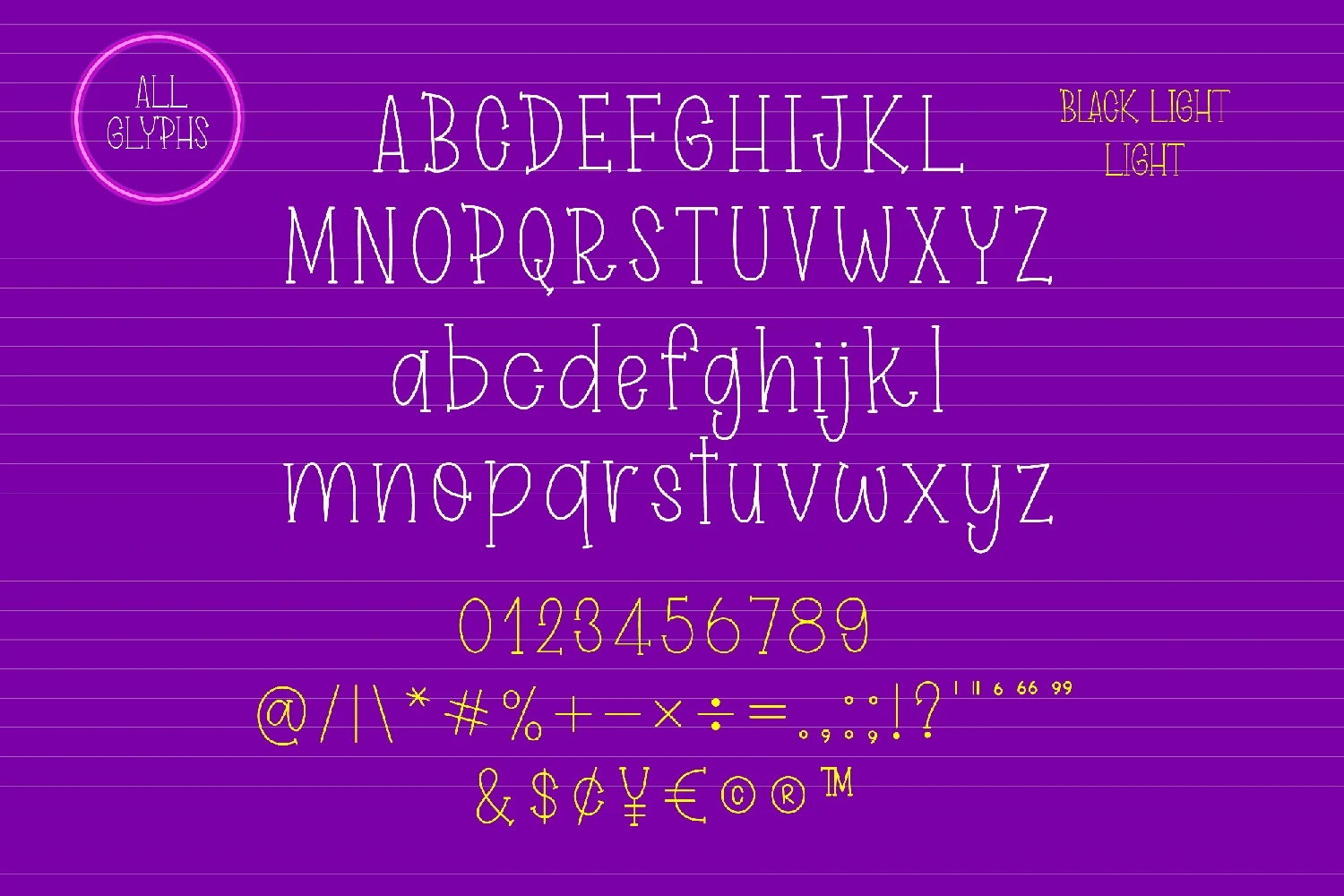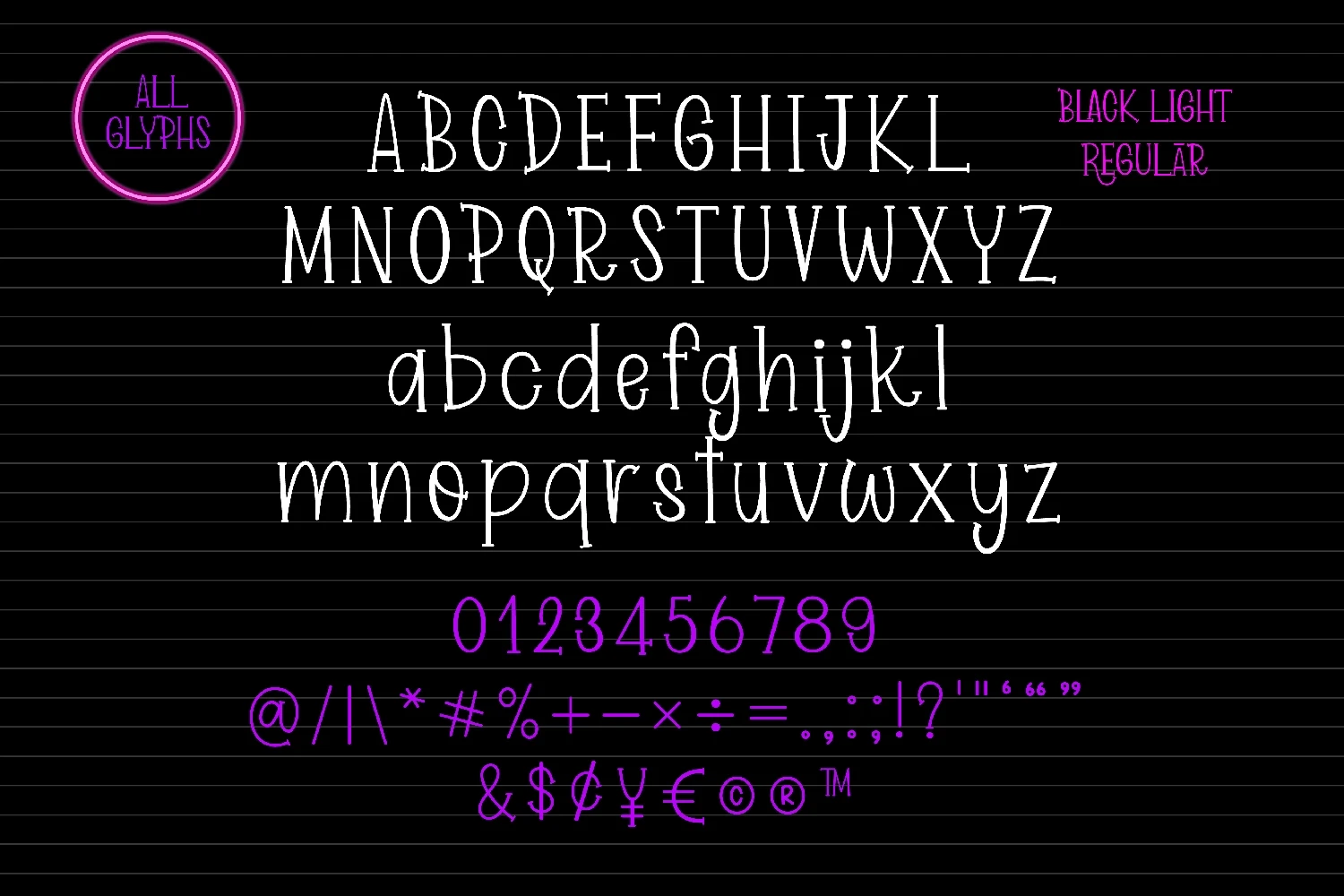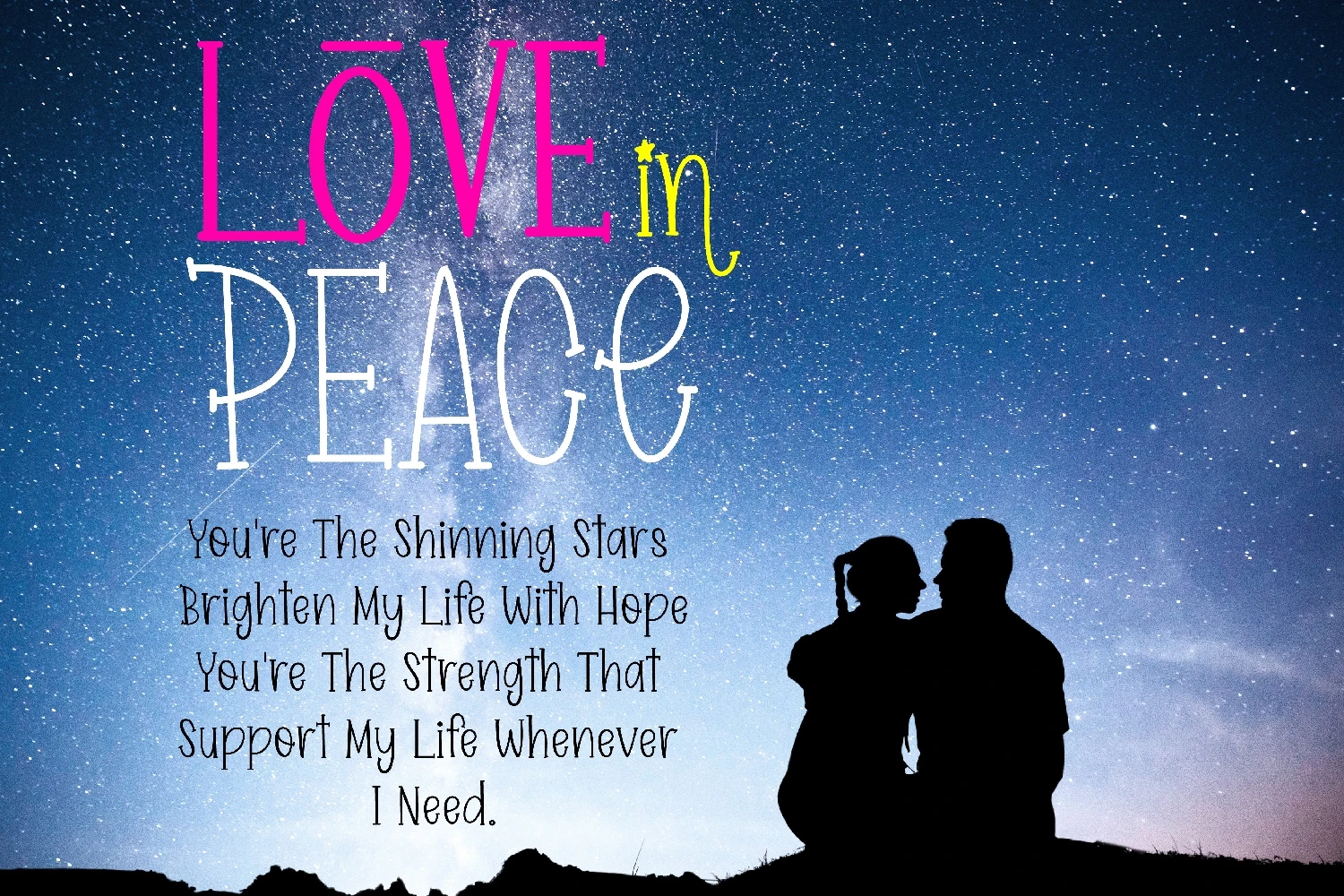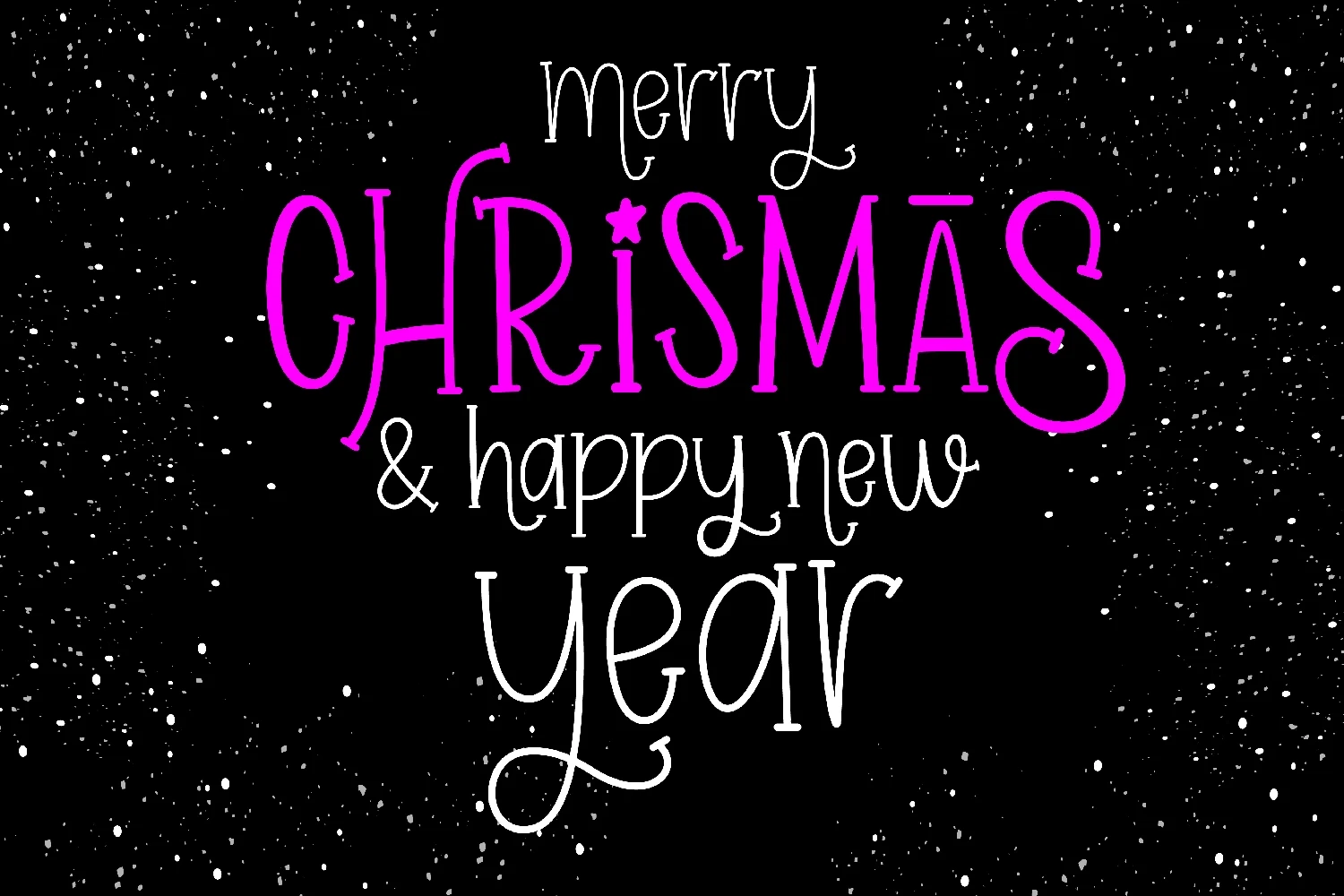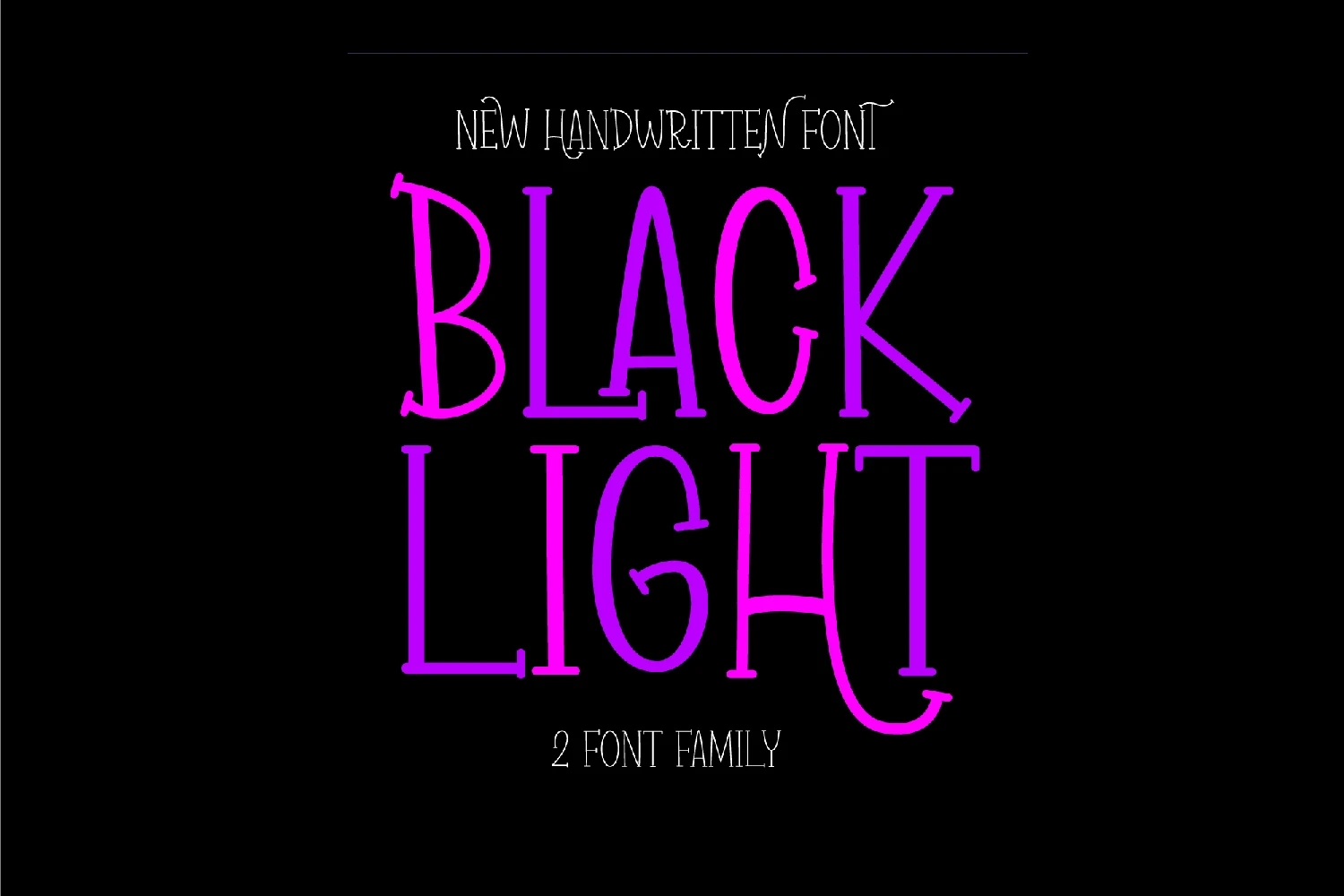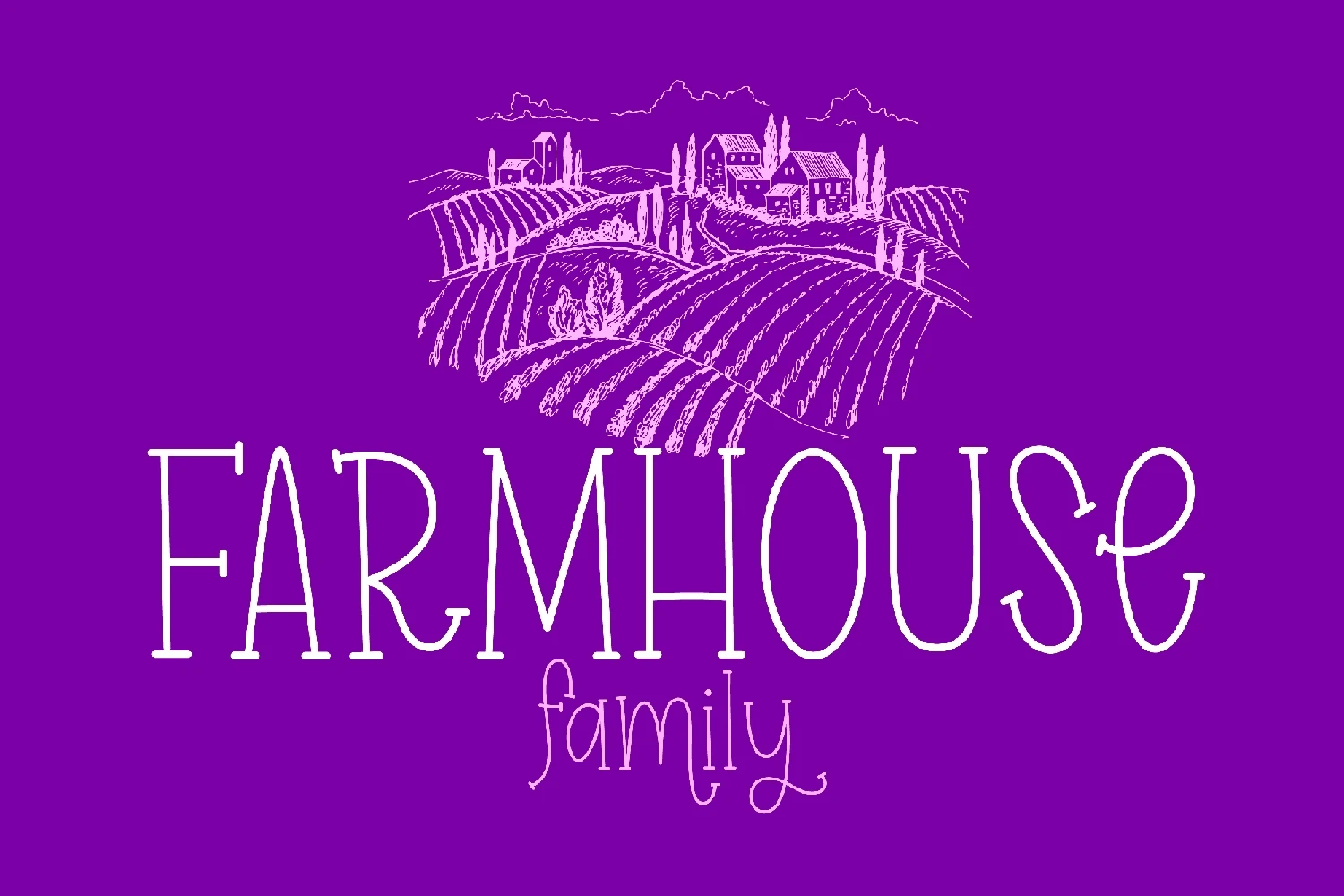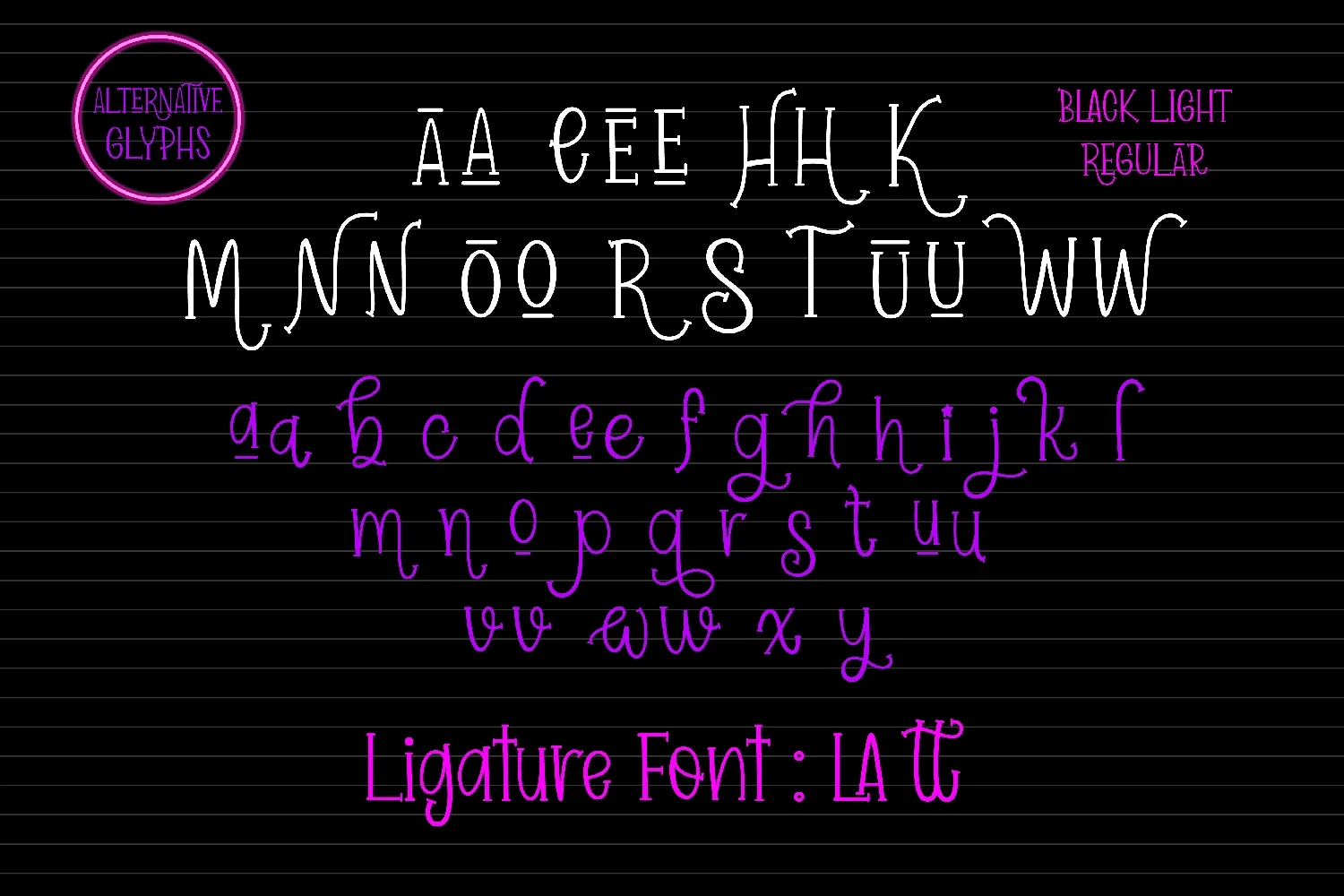
Black Light is a sweet and friendly handwritten font. Its natural and unique style makes it incredibly fitting to a large pool of designs. The only limit is your imagination! White Nigth is PUA encoded which means you can access all the glyphs and alternates with ease!